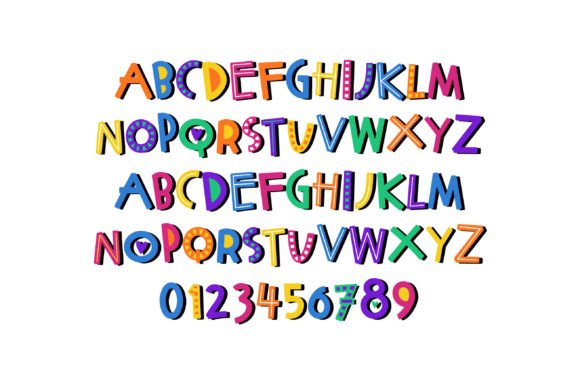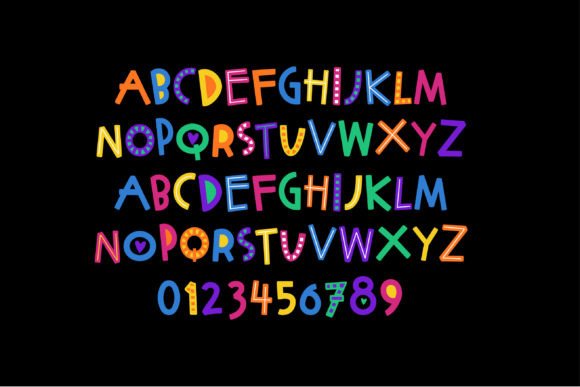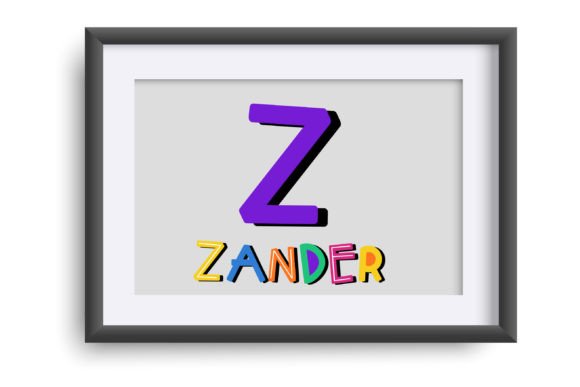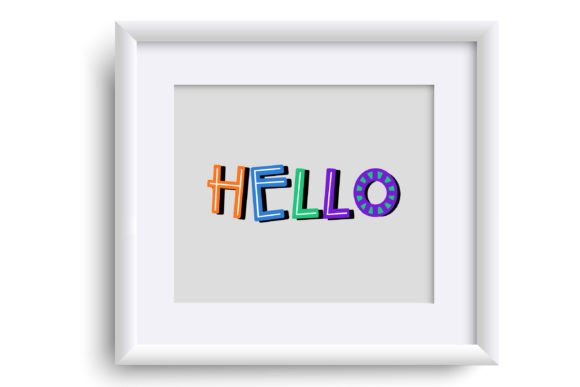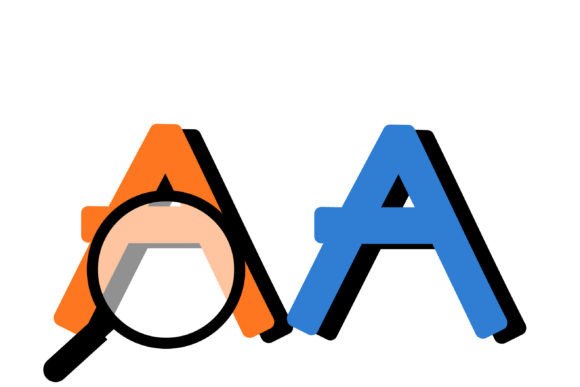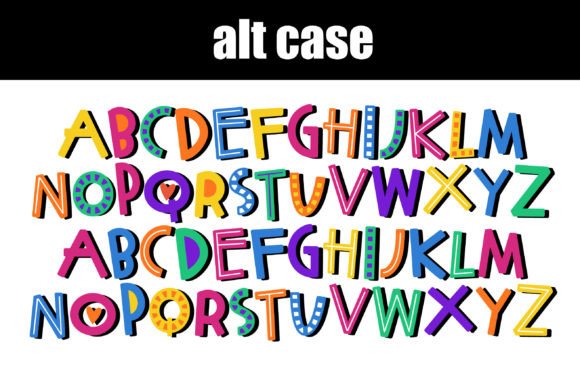
Unleashing Creativity with the Make It Rainbow Font
Do you remember that moment when you were working on a creative project and suddenly, the right font appeared to bring your idea to life? For many designers, this is a moment of pure joy and satisfaction. The Make It Rainbow Font is one of those game-changers that can elevate your design and make it truly stand out. With its bold and bright colors, this color font is perfect for adding a unique and playful touch to your work.
As a valuable design resource, the Make It Rainbow Font is a high-quality addition to any designer’s toolkit. Whether you’re working on a project that requires a transparent background or need a font that can add some visual interest, this font is sure to deliver. Plus, with its PUA encoded features, you can access all glyphs and swashes effortlessly, making it a breeze to use in your creative projects.
Key Features of Make It Rainbow Font
- High-quality design resource with a unique and vibrant aesthetic, perfect for creative projects.
- Perfect for designers and artists looking to add a pop of color and creativity to their projects, with a size range of 100-500 characters.
Honest Review: Make It Rainbow Font
As a designer, I’m always on the lookout for high-quality design resources to enhance my creative projects. I recently had the chance to try out the Make It Rainbow Font, and I’m excited to share my honest review.
- The Make It Rainbow Font is incredibly versatile, making it perfect for a wide range of creative projects, from logos to social media graphics.
- The transparent background option allows for seamless integration with any design element.
- The font may not be suitable for formal or professional projects, as it’s quite playful and attention-grabbing.
- The lack of bold or italic versions may limit its use in certain design contexts.
Make It Rainbow Font is ideal for a variety of creative projects, including:
- Wedding invitations and decorations
- Party and event materials
- Marketing and advertising materials
Alternatives to Make It Rainbow Font